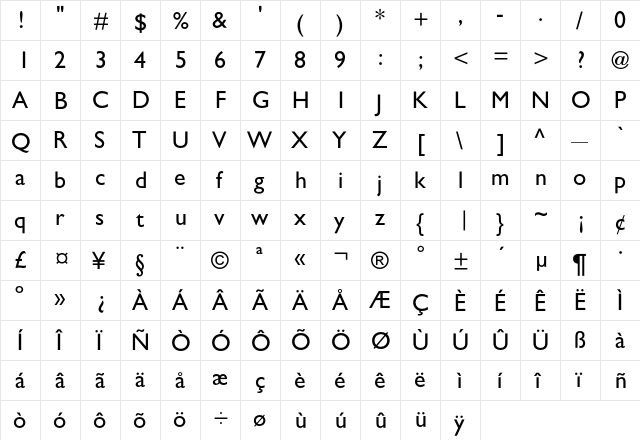
Gentle SansBook
Design Context for Gentle Typeface
Gentle is a composed and adaptable typeface that performs quietly and consistently across a wide range of design contexts.
Pro Tip: Use Gentle in both headline and body roles to test its range before committing to a single application.